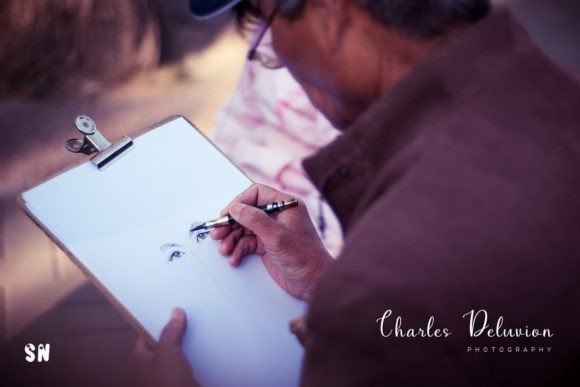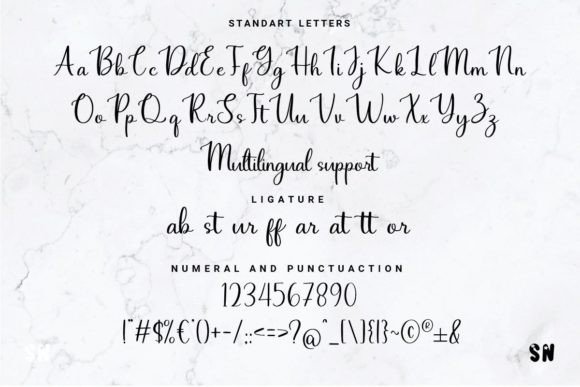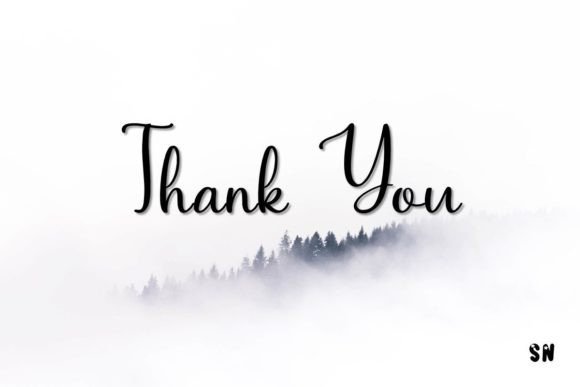
Unlock the Magic of Friday Pon Font
As you sit at your desk, surrounded by scraps of paper, scattered notes, and a sea of design inspiration, you finally feel that spark – the urge to create something truly special. You envision a project that’s not just visually stunning, but also speaks to the soul. This is where Friday Pon Font comes in – a carefully crafted, handwritten font that’s designed to elevate your designs and leave a lasting impression.
Perfect for fashion branding, photography, quotes, wedding invitations, and more, Friday Pon Font is the ultimate tool for designers looking to take their projects to the next level. With its cursive and stylish design, this font is sure to make your work stand out from the crowd. And with its PUA encoding, accessing all the glyphs and swashes is a breeze, making it a valuable addition to any designer’s toolkit.
- Unique Characteristic: Distinctive, hand-drawn style with a modern twist
- Font Style: Script, Casual, with 2 weights: Regular and Bold
Friday Pon Font Review
I recently had the chance to work with the Friday Pon Font, and I must say it’s a unique and quirky addition to any design project. Here are my honest thoughts on what works well and what doesn’t.
- Playful vibe**: Friday Pon Font has a carefree, playful personality that’s perfect for casual projects or branding that needs a fun twist.
- Highly legible**: Despite its whimsical design, the font is surprisingly easy to read, making it a great choice for body text.
- Customizable**: Friday Pon Font offers a range of styles and weights, giving you the flexibility to adapt it to your design needs.
- Not ideal for formal projects**: Friday Pon Font’s playful nature might not be suitable for more formal or professional projects.
- Limited use for small text**: The font’s style can make small text appear cluttered or hard to read.
The Friday Pon Font is a fun, versatile addition to any designer’s toolkit. While it may not be suitable for every project, its playful vibe and high legibility make it a great choice for the right client or design brief.
To get the most out of the Friday Pon Font, try combining it with bold or italic styles to create emphasis. You can also use it in conjunction with other playful fonts to create a fun and whimsical design.
The Friday Pon Font is perfect for creating playful and eye-catching designs for social media, marketing materials, and children’s products. It’s also great for adding a touch of whimsy to your branding and packaging designs.